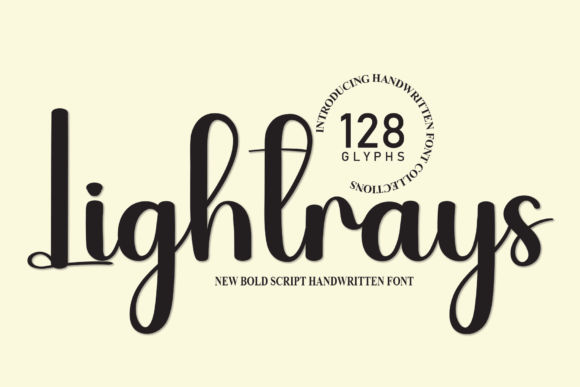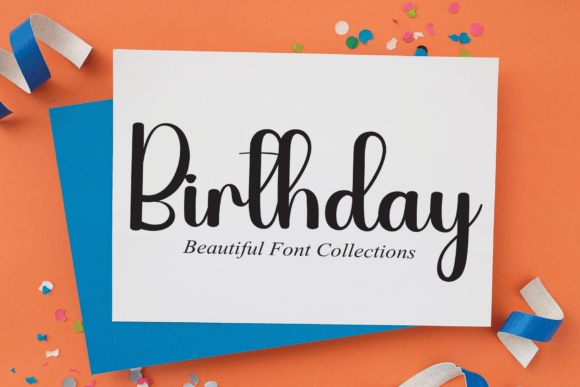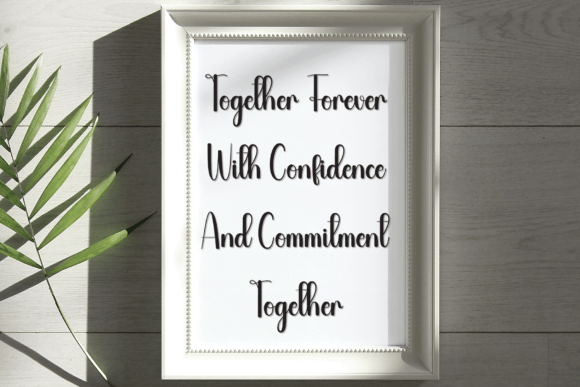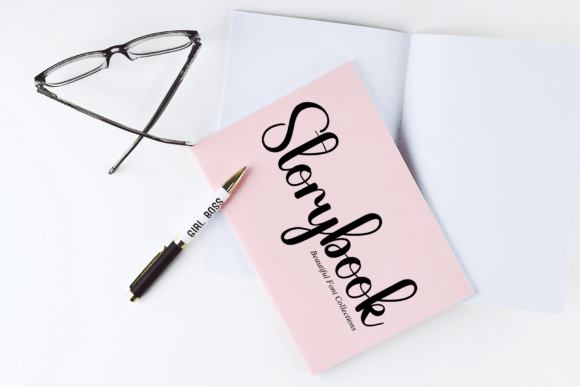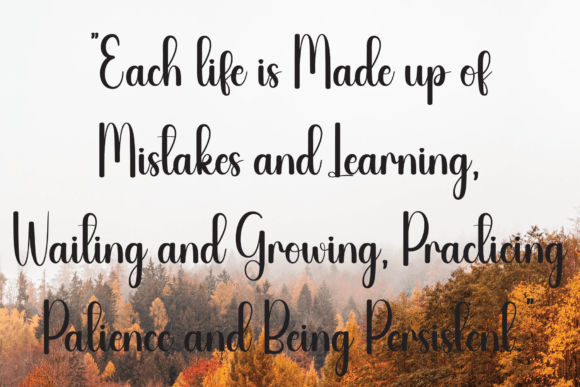
Lightrays
About Lightrays
Lightrays is a romantic and sweet calligraphy typeface with characters that dance along the baseline. It will add a luxury spark to any design project that you wish to create!